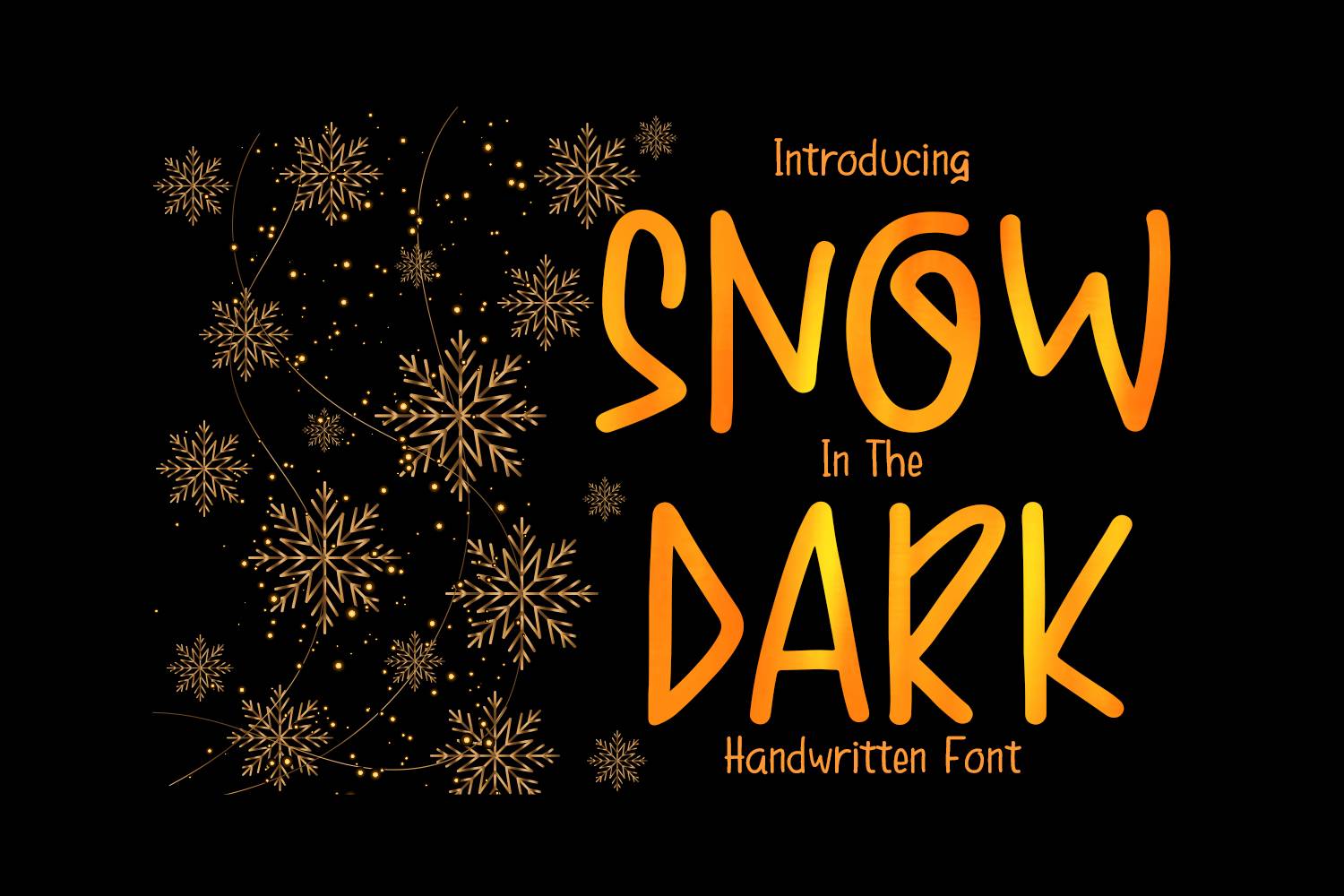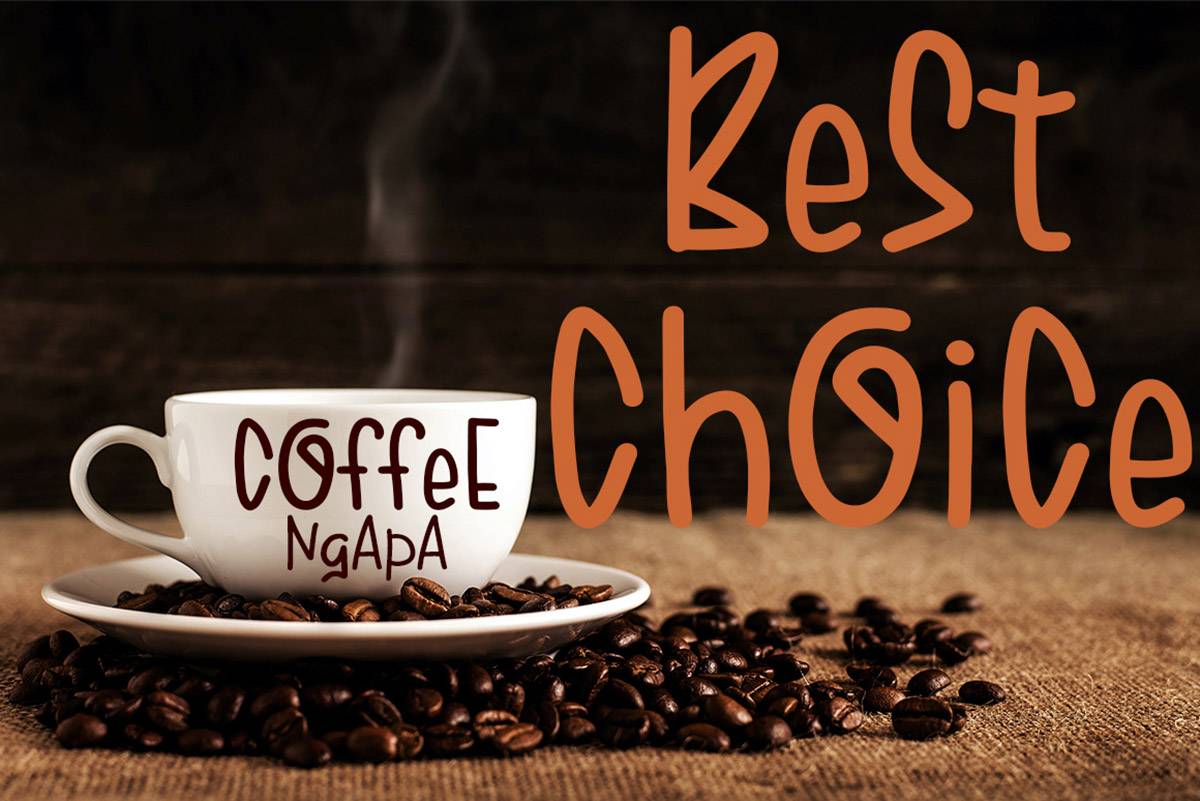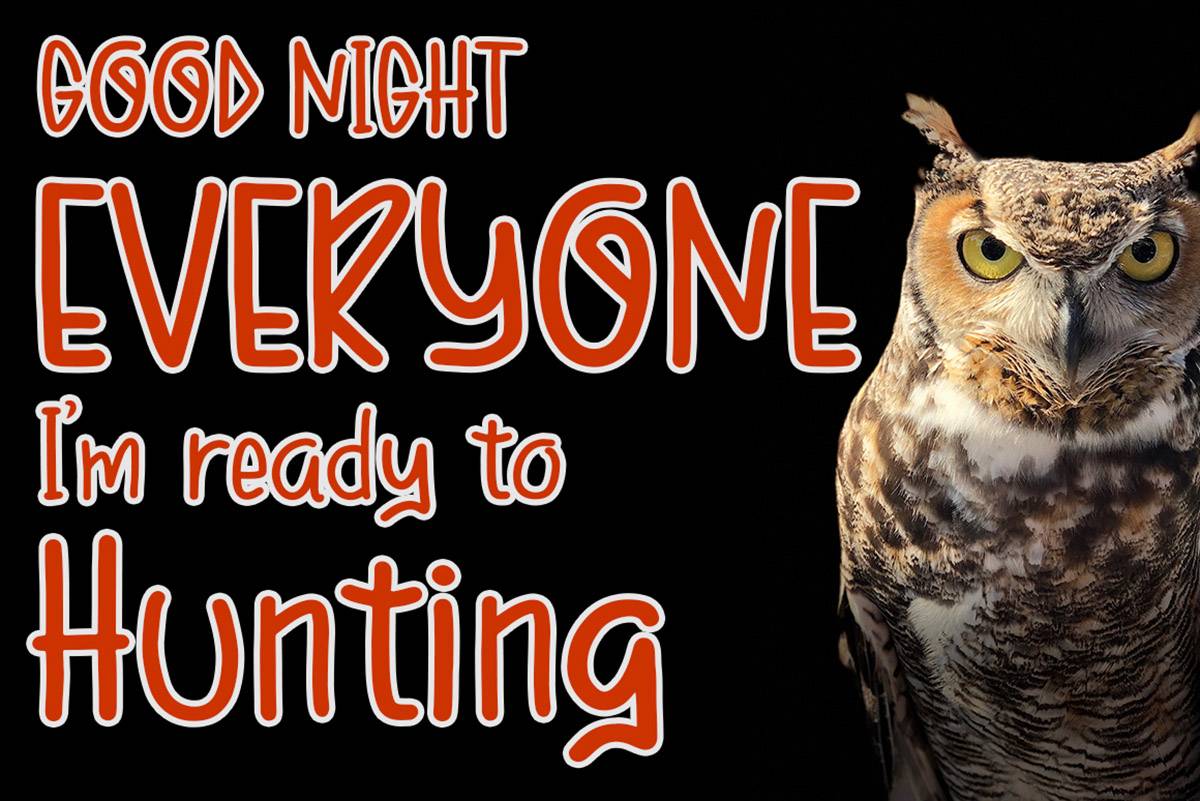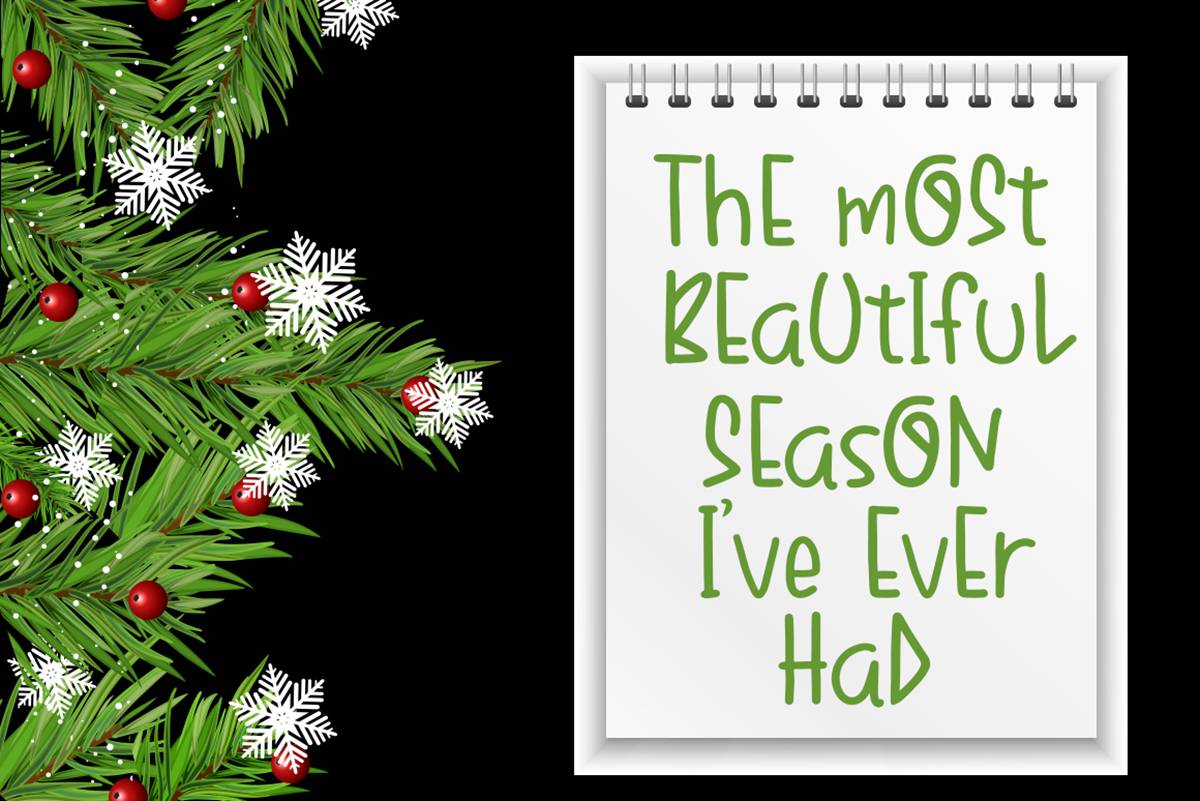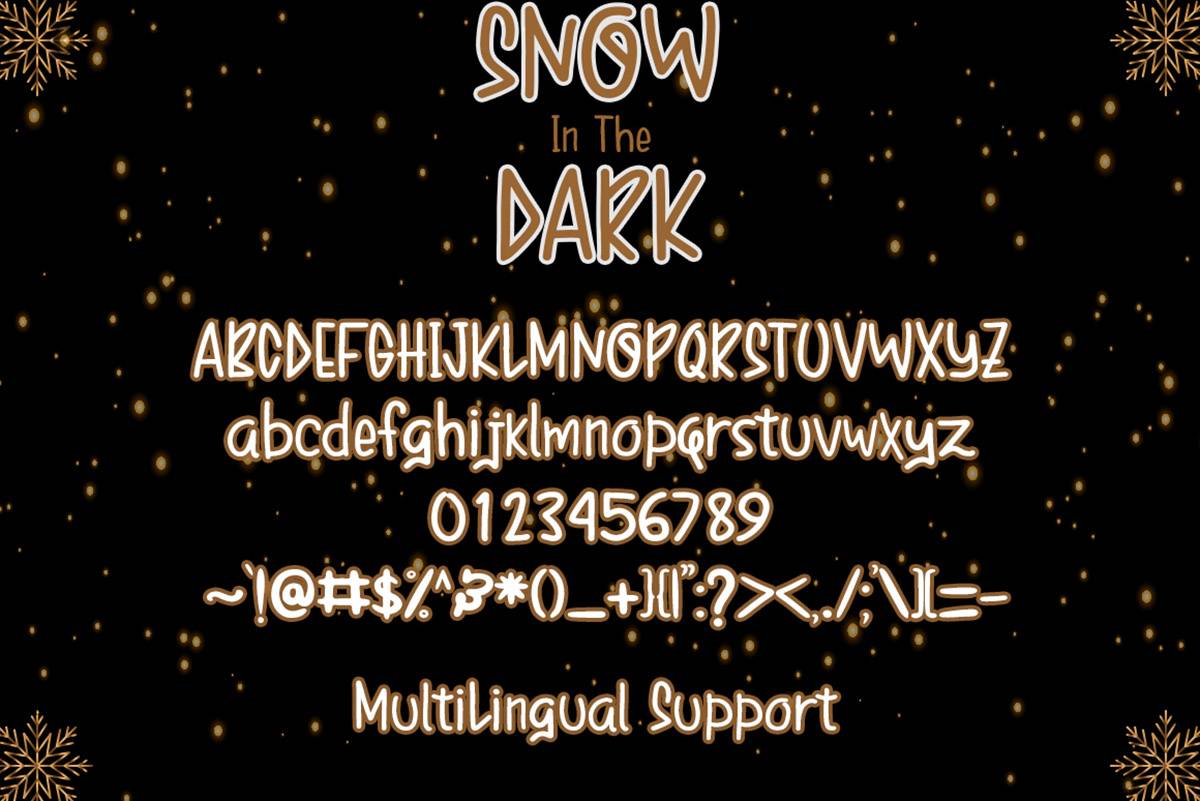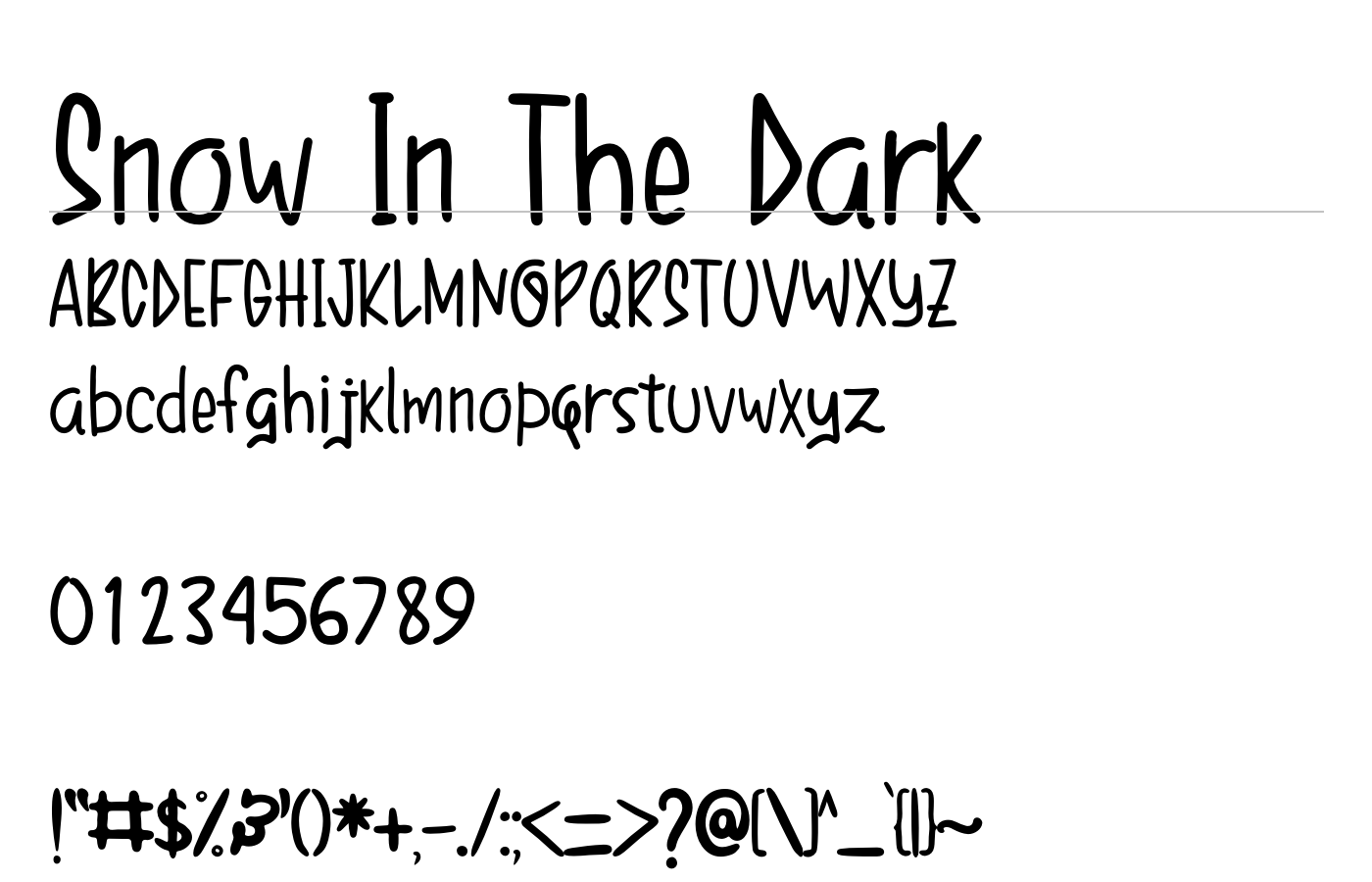
Snow In The Dark is a playful handwritten sans serif font with tall, slightly irregular letterforms that create a casual and friendly feel. Its medium weight and consistent stroke width make it legible and approachable, perfect for fun and informal designs. This font works well for children’s books, creative branding, and informal headlines where a personal, whimsical touch is desired.
Snow In The Dark Font
About Snow In The Dark Font
| Font family | Snow In The Dark Font |
| Designer | Fajar Wicaksono |
| Trademark | Booga Studio |